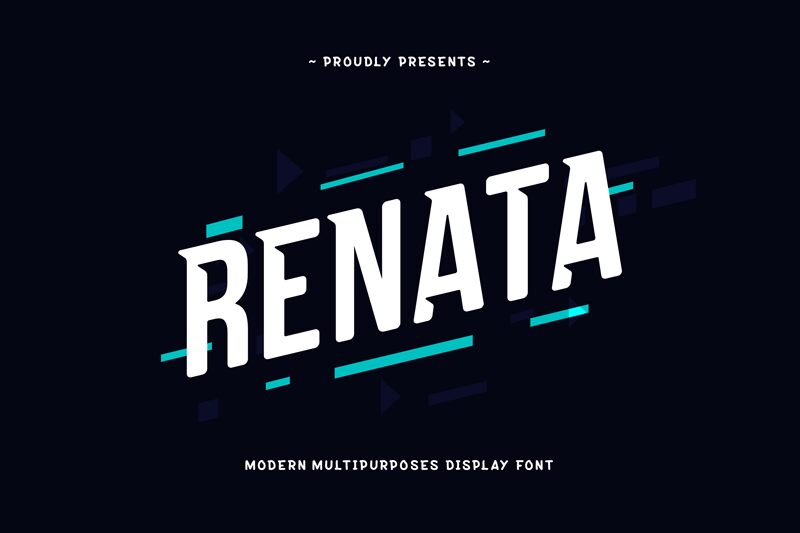
Renata One is a modern, multipurpose display font designed by Khairul Amin Al Azmi. With its extra-condensed width, Renata One demands attention and makes a bold statement. Ideal for headlines, logos, posters and packaging designs that require a sleek and modern touch. Renata One's unique style is suitable for various creative projects such as fashion branding, tech startups, food industry or any other contemporary design that requires an eye-catching accent. With its clean lines and sharp edges, Renata One is the perfect font to enhance your project's visual appeal and make it stand out from the crowd.
Renata One